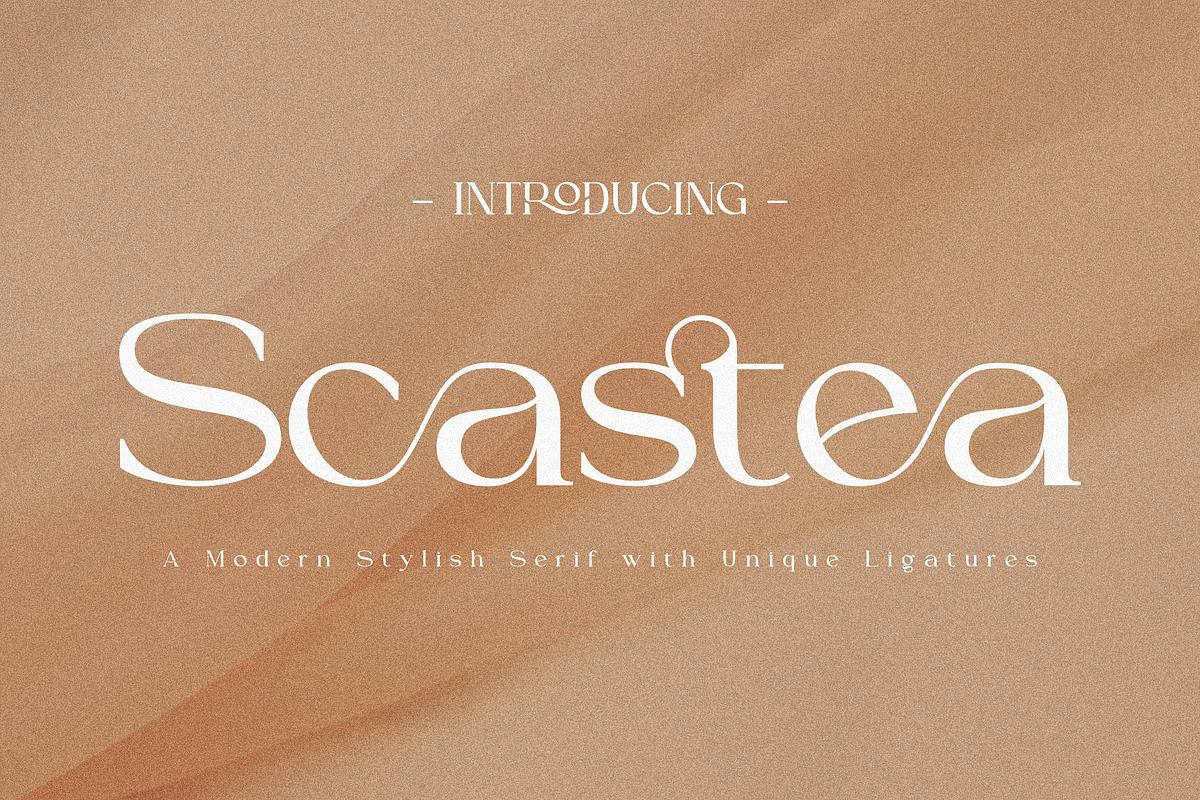
Scastea | A Modern and Elegant Font Free Download
Scastea | A Modern and Elegant Font Free Download is a sleek serif typeface designed to deliver timeless sophistication with a fresh, contemporary edge. Please note: you must purchase this font for commercial use, but you can test it through a free download. With its high-contrast strokes, clean lines, and subtle curves, Scastea is perfect for luxury branding, editorial layouts, fashion magazines, packaging, and wedding invitations.
This font offers both class and clarity—ideal for creatives who want to elevate their typography with understated elegance. Whether you're crafting a premium logo or designing refined marketing materials, Scastea | A Modern and Elegant Font Free Download brings professionalism and beauty to every project. Fully compatible with Adobe Illustrator, Photoshop, Canva, and more. Download it today for personal use and give your designs a touch of modern grace with Scastea.